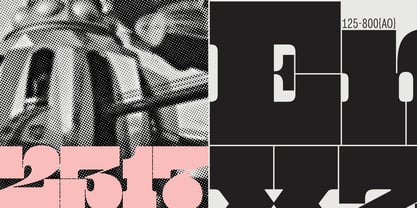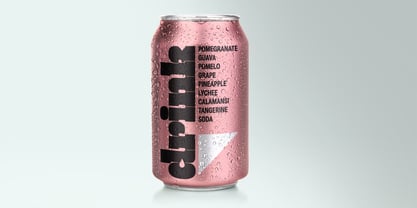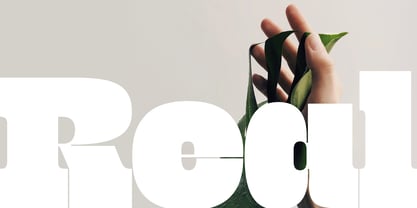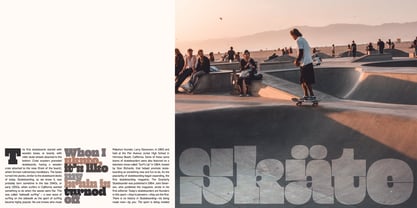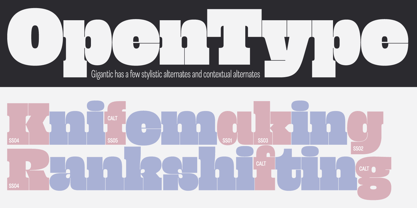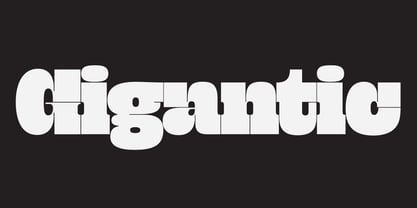
Gigantic Font
This Gigantic Font is perfect for massive billboard advertising, colossal event promotions, enormous stadium signage, mega-scale construction branding, giant entertainment venues, supersized retail displays, monumental architectural graphics, large-scale festival materials, huge product launches, and tremendous brand announcements.
What makes this Gigantic Font exciting is its colossal presence that captures the overwhelming impact and massive scale of truly enormous design applications. The font features heavyweight letterforms with enormous proportions that convey tremendous power, massive impact, and supersized brand presence. Its monumental character and colossal scale make it ideal for brands seeking to communicate huge achievements, massive capabilities, and gigantic market presence in large-scale commercial environments.
The Gigantic Font family includes regular, bold, and black weights with colossal alternates, supersized variants, and monumental flourishes. This comprehensive enormous font family provides designers with massive typographic tools to create tremendous compositions while maintaining the gigantic character essential for large-scale advertising and monumental brand communications.
Entertainment venues and massive corporations consistently choose Gigantic Font Free Download for projects requiring colossal impact and supersized appeal. This font's distinctive enormous character perfectly captures the tremendous scale and massive presence that resonate with audiences who appreciate gigantic achievements, colossal entertainment, and brands that embody supersized excellence and monumental success.
The monumental construction of Gigantic Font showcases powerfully designed letterforms with colossal proportions that ensure maximum visibility across all large-scale applications. Its tremendous appearance and gigantic presence create unforgettable impressions while maintaining the readability necessary for effective massive communication and supersized marketing materials.
Professional designers appreciate how Gigantic Font brings immediate colossal authority and enormous impact to brand communications. The font's gigantic nature allows organizations to communicate tremendous achievements and massive capabilities while maintaining the professional quality necessary for effective positioning in large-scale entertainment and supersized commercial markets.
The tremendous appeal of Gigantic Font makes it particularly effective for brands emphasizing colossal scale, enormous achievements, and supersized market presence. Its monumental character resonates strongly with audiences who appreciate gigantic entertainment experiences, massive commercial success, and brands that represent the pinnacle of colossal achievement and tremendous market leadership.
Whether developing campaigns for enormous entertainment complexes or creating materials for massive corporate events, Gigantic Font Free Download provides the colossal typographic foundation that supersized brands need to communicate their tremendous impact, gigantic capabilities, and the monumental excellence that defines large-scale commercial success and enormous brand achievement.